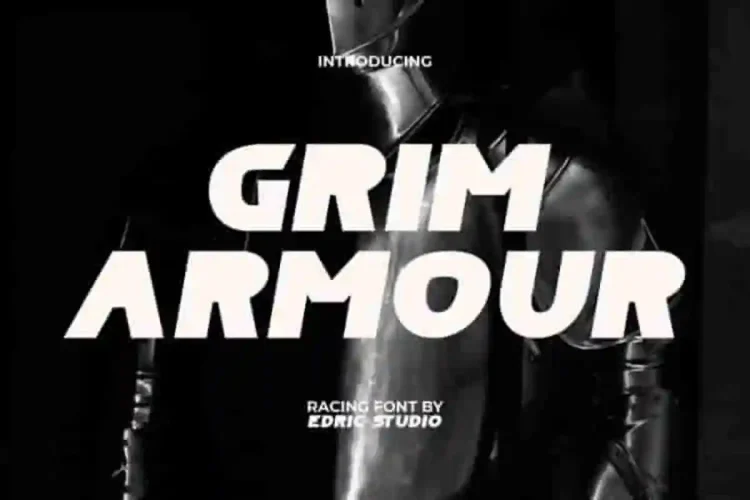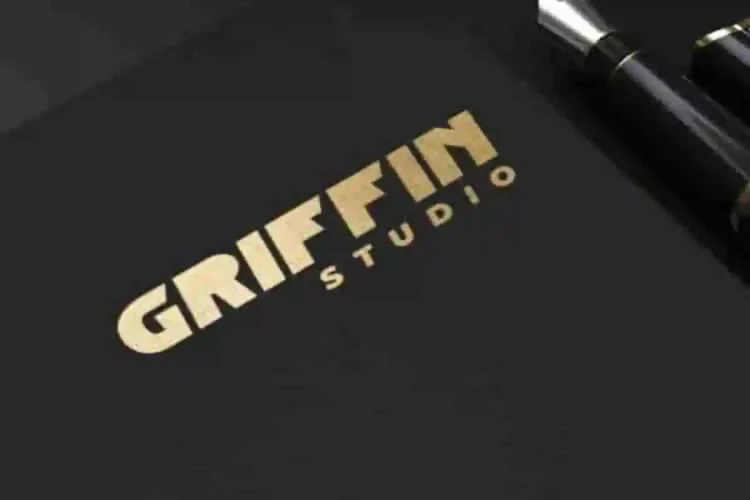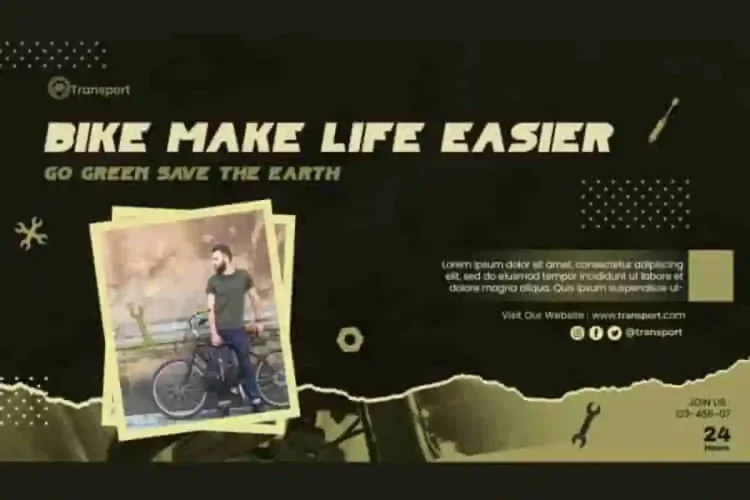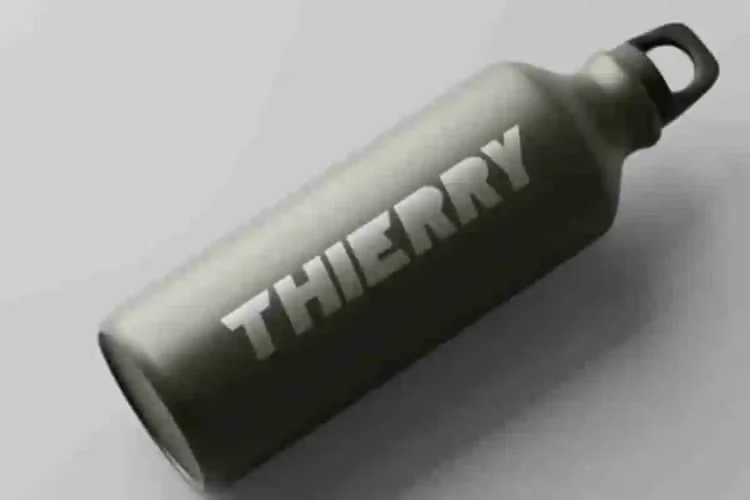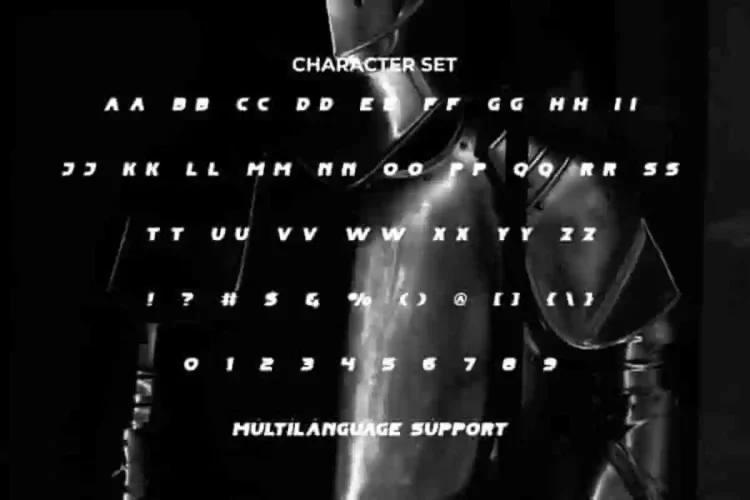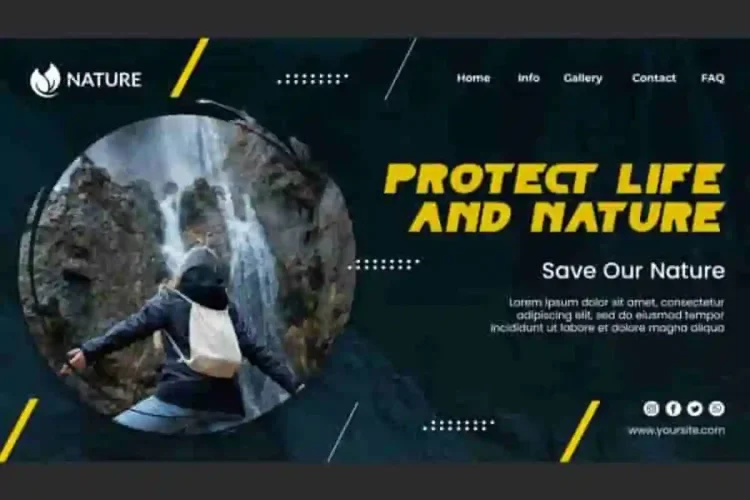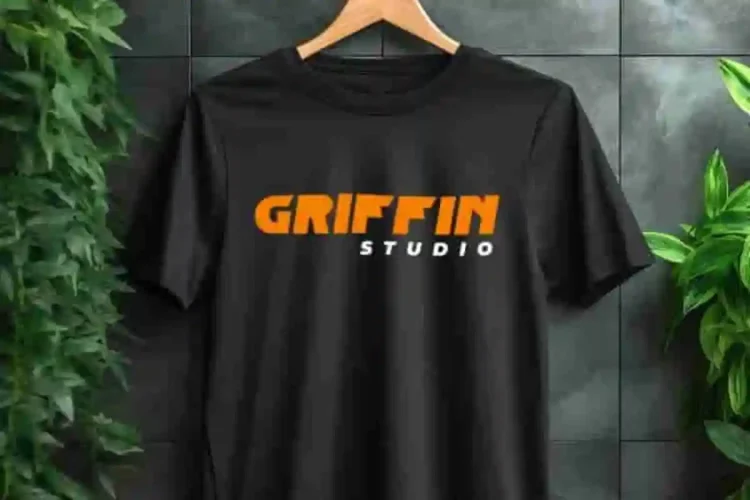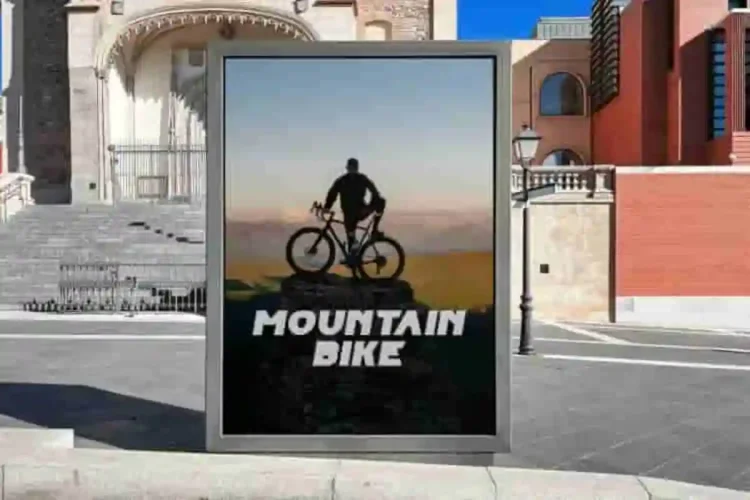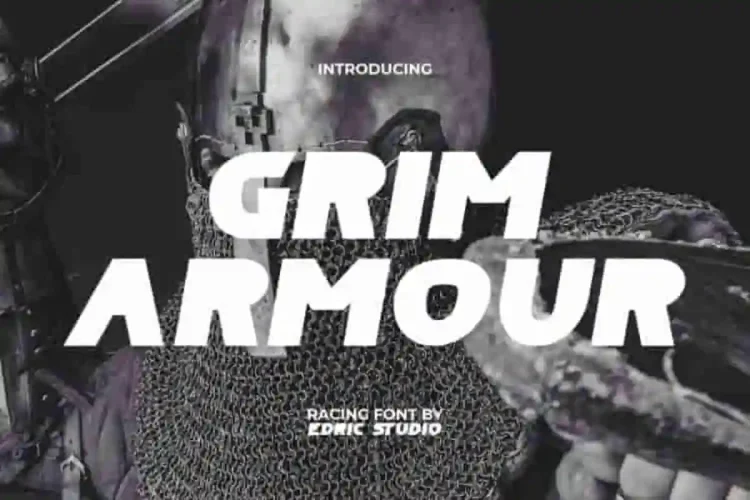
Grim Armour Modern Display Font
Grim Armour Modern Font is a irresistible racing display font with an armor-themed sans serif style feel. The font seamlessly blends modern typographic nods with a touch of nostalgia, creating a perfect blend of past and present. Perfect for banners, billboard, brochure, embossed design, decal, flyer, headers, logos, mockup, poster, printed materials, template, title, website, and others.
Grim Armour Modern Display Font Designed with sturdy geometric shapes and ALL CAPS versatility, this font includes uppercase and lowercase sets, numbers, punctuation, and symbols. Combining modern precision with timeless character. Perfect for apparel, authors, film, graphic designers, movie, photography, printing, publishing, recreation and holiday bureau, web designer, writers, and others.
Grim Armour Font a playful typeface with unique decoration in each character. Combine different characters for a bespoke, handcrafted feel. It’s tested to work well in the Adobe Apps (Illustrator, Adobe InDesign, Adobe Photoshop) even work on Microsoft Word. All of these characters are available through the glyph panel, moreover each letter has its own unicode (PUA) so you can access all the characters easily.